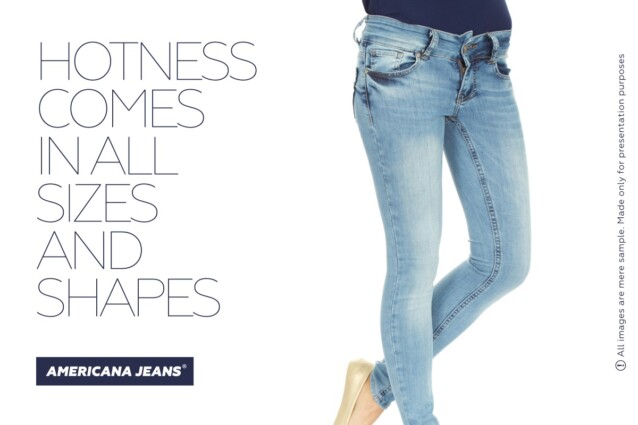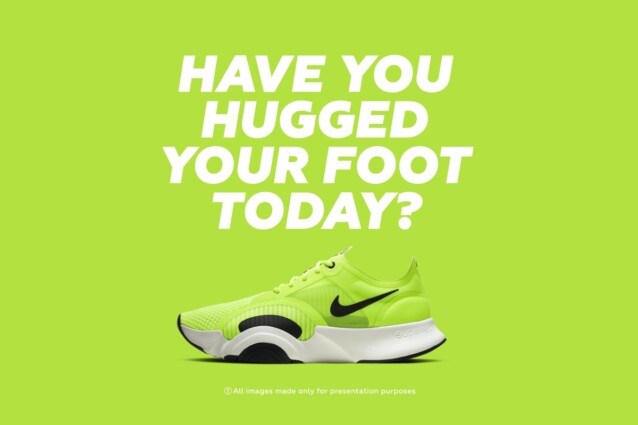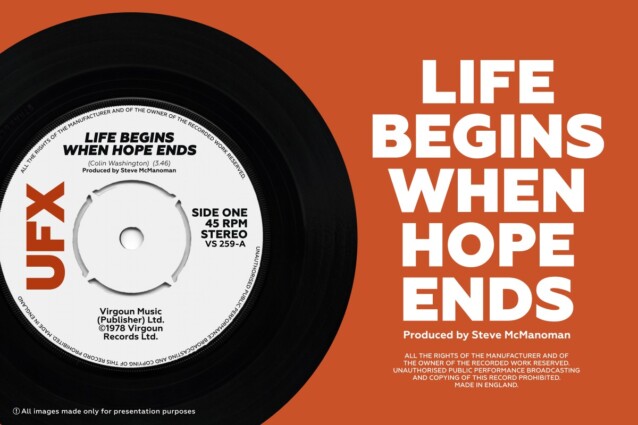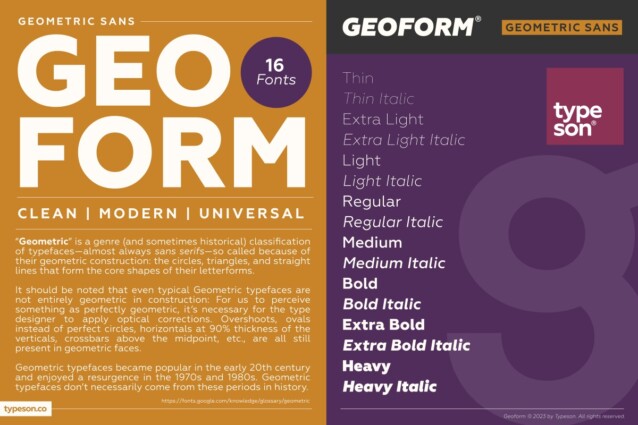
Geoform Font Family
Geoform Font is a clean modern and geometric sans-serif typeface inspired by industrial design and technical fonts. They are almost always sans-serif and are known for their clean, modern, and structured appearance. Geometric fonts are often used in branding, advertising, and graphic design because of their ability to convey a sense of sophistication and professionalism.
Geometric fonts are a great choice for designers who want to create a modern and professional look. They are often used in logos, headlines, and other design elements where a clean and structured appearance is desired. Geometric fonts can also be used in body text, but they are generally not as legible as other typefaces.